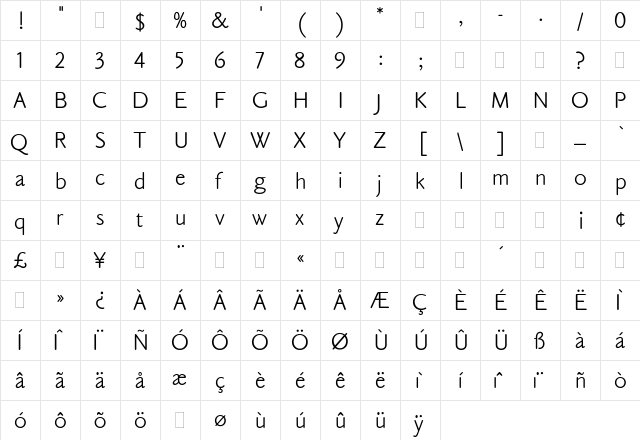
ClaudeSansPlain Regular
Design Context for ClaudeSansPlain Typeface
ClaudeSansPlain is a composed and adaptable typeface that performs quietly and consistently across a wide range of design contexts.